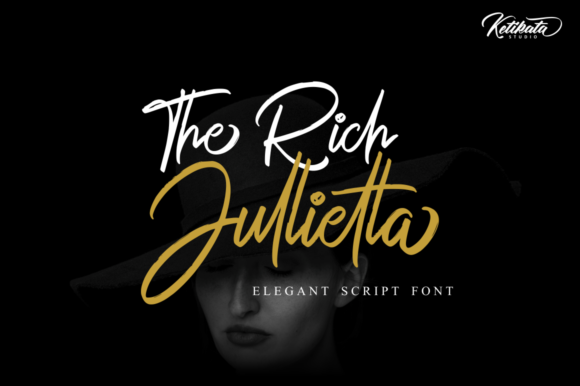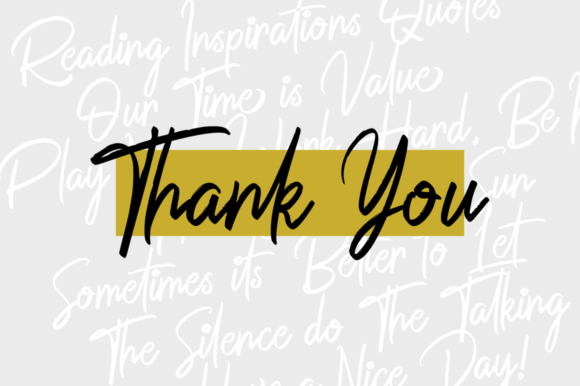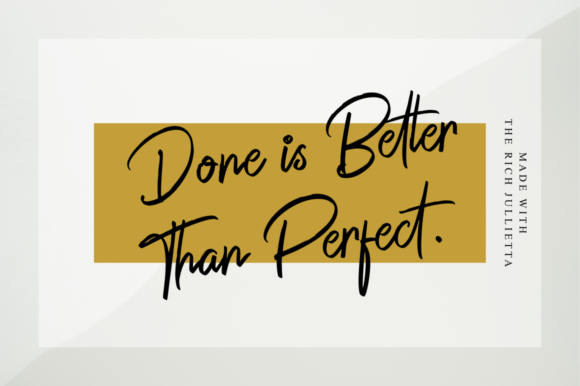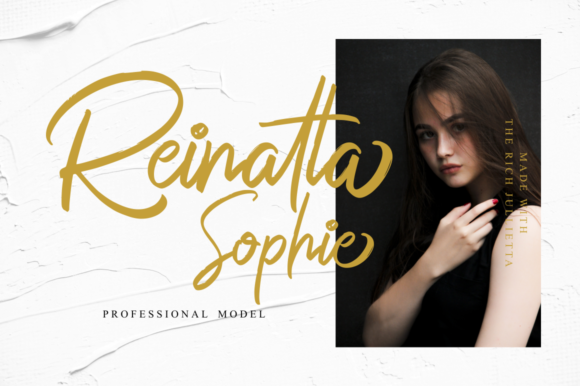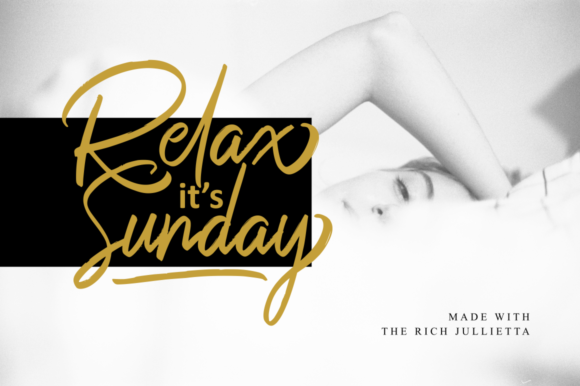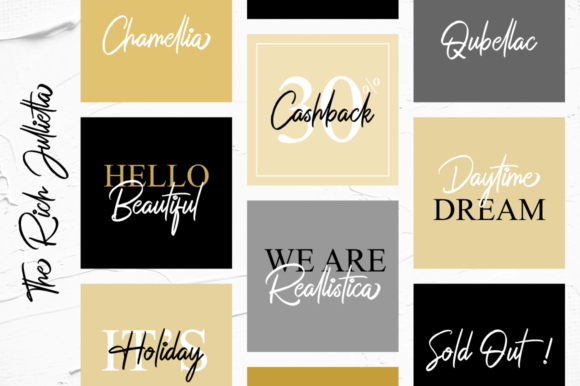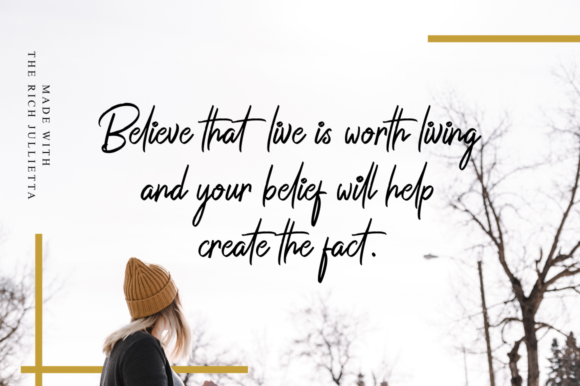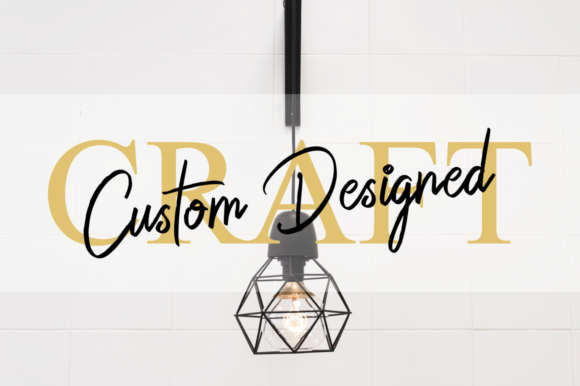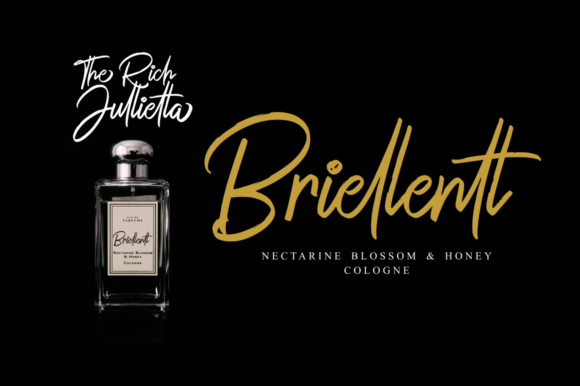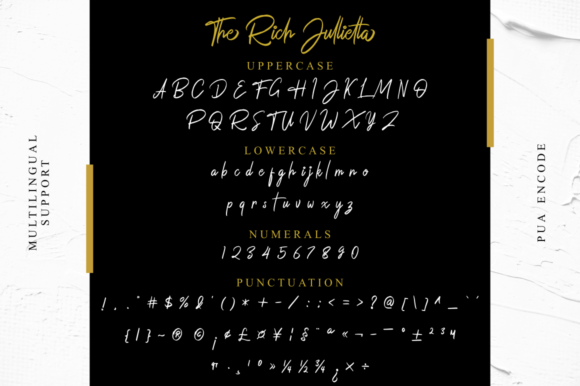
The Rich Jullietta Font
About The Rich Jullietta Font
The Rich Jullietta is a luxurious and modern handwritten font with a playful vibe. Get inspired by its unique feel, and turn any design idea into a true standout!